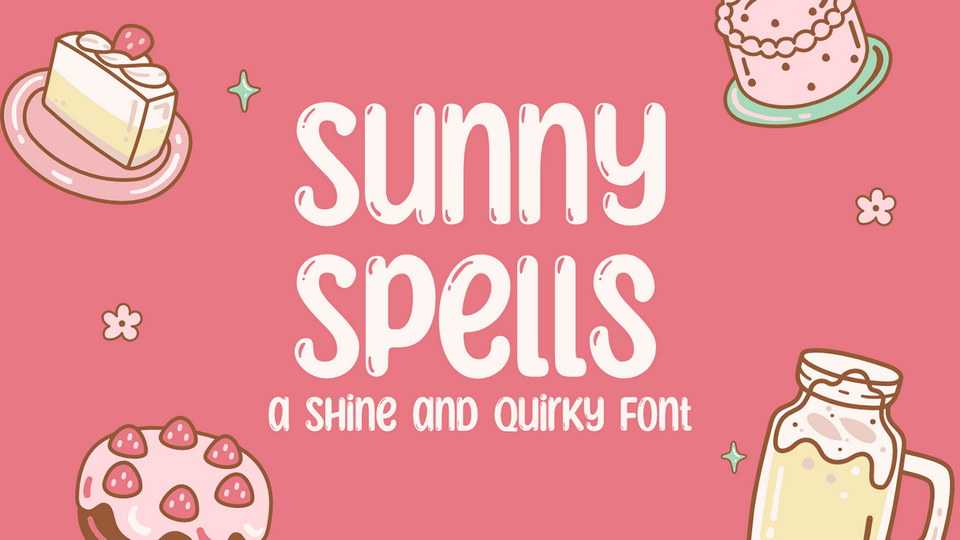
Download Sunny Spells font, a shine and quirky handwritten typeface. Add Sunny Spells to each of your party invitation, gathering or pretty much any design that requires a touch of youth and joy.
Designer: Niskala Huruf